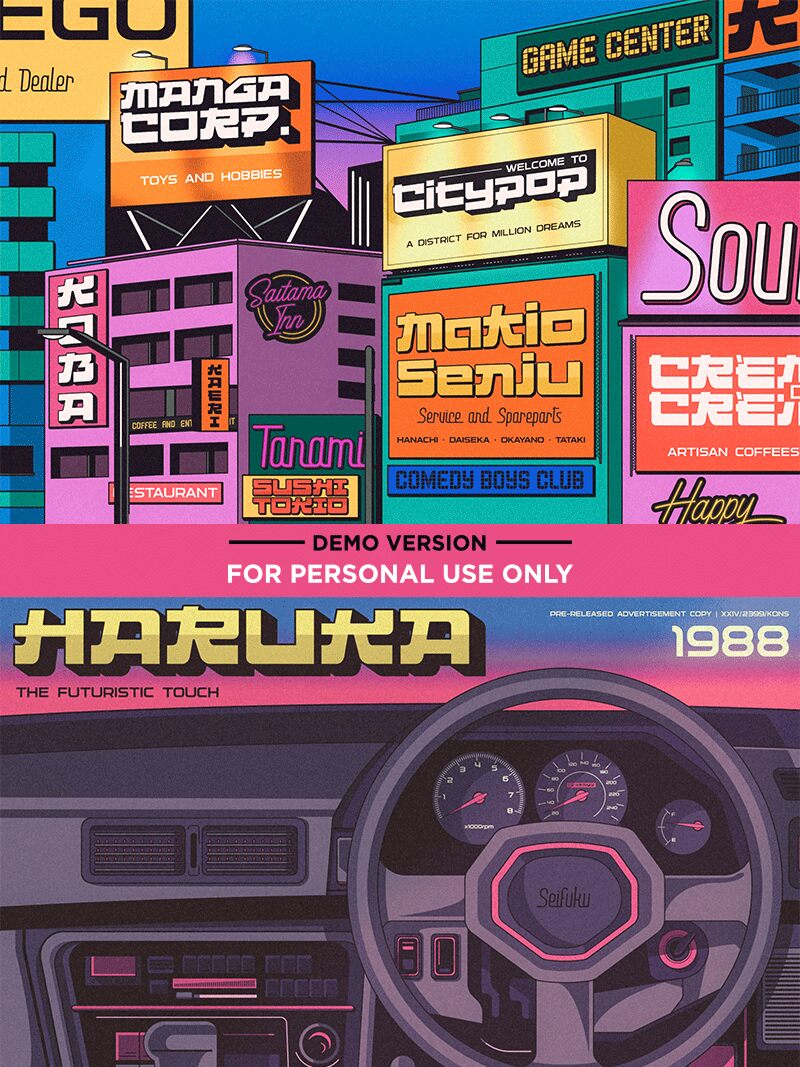
Inspired from the old era of embracing the trends of emerging sound-system and music technology such as walkman, cars with built-in cassette deck, FM stereos, and electronic musical instruments.
We came up with the idea of the terms from Citypop itself. A popular trend of musical culture, fashion, and lifestyle from Japan back in the late 70s to 90s. Also known as Vaporwave, Future Funk, and Synthwave in the American music industry.
Came up in a bundle of 5 fonts that tailored to perfectly match with the era. The imagination of vibing up the driving old cars with the music from a cassette deck, a sunset view of the crowded city with neon signs and lights, are always our main jam in the process of crafting these fonts.